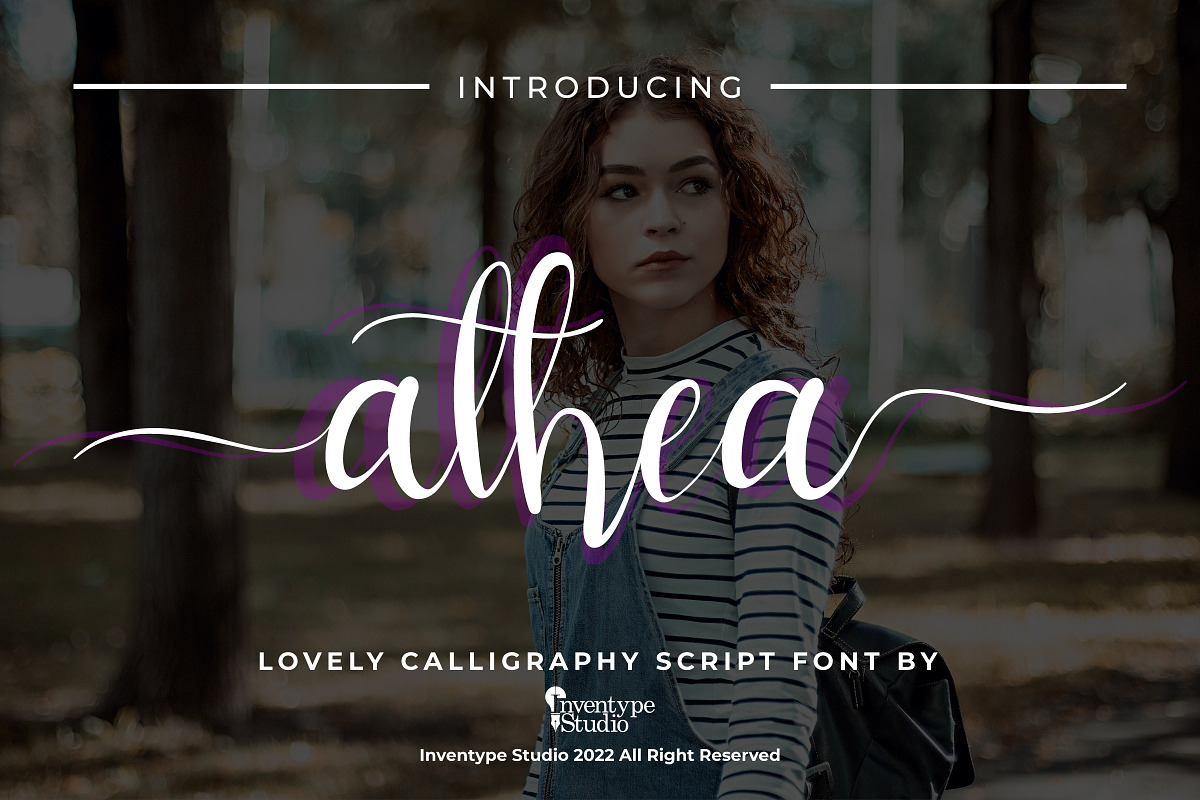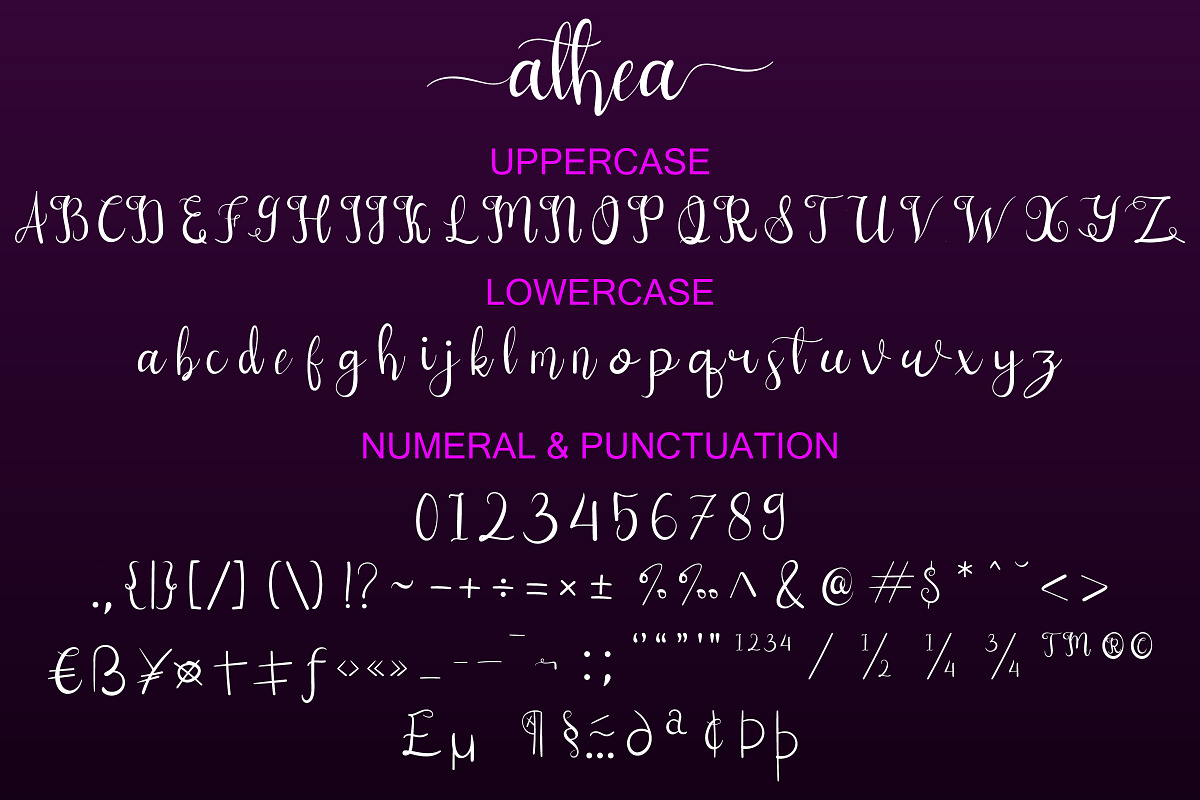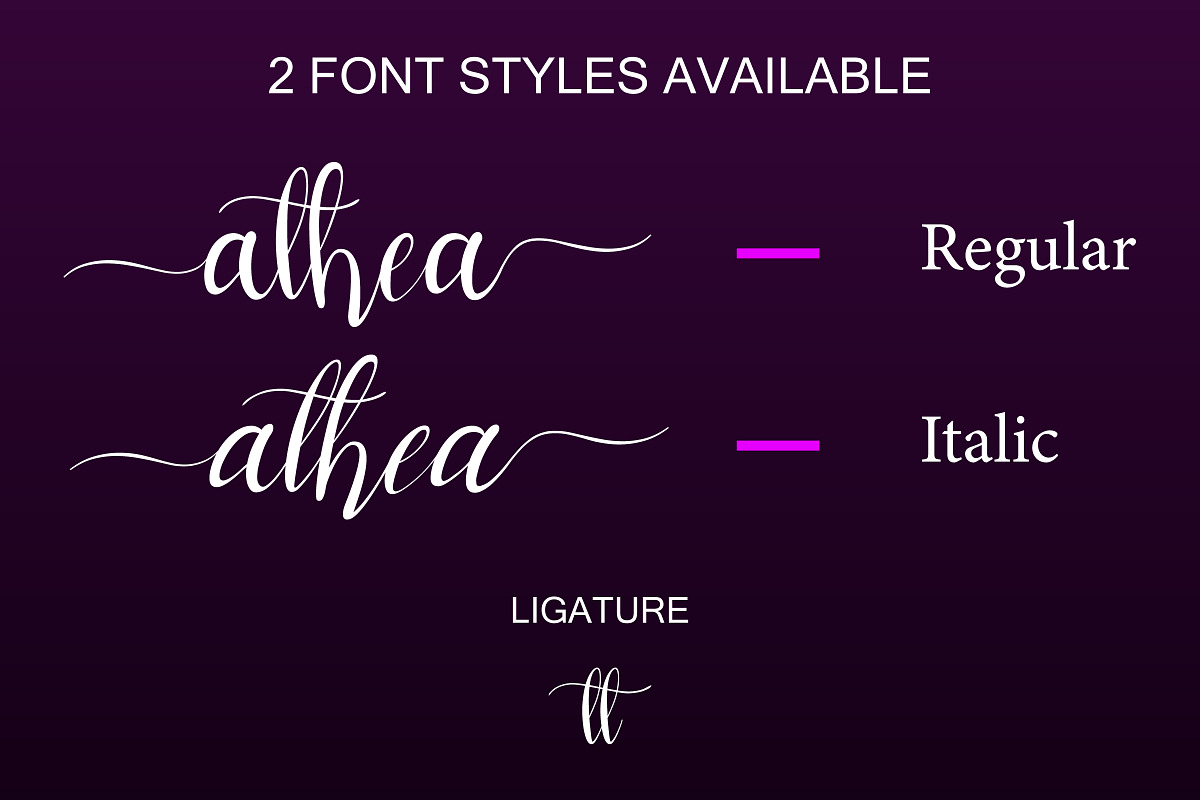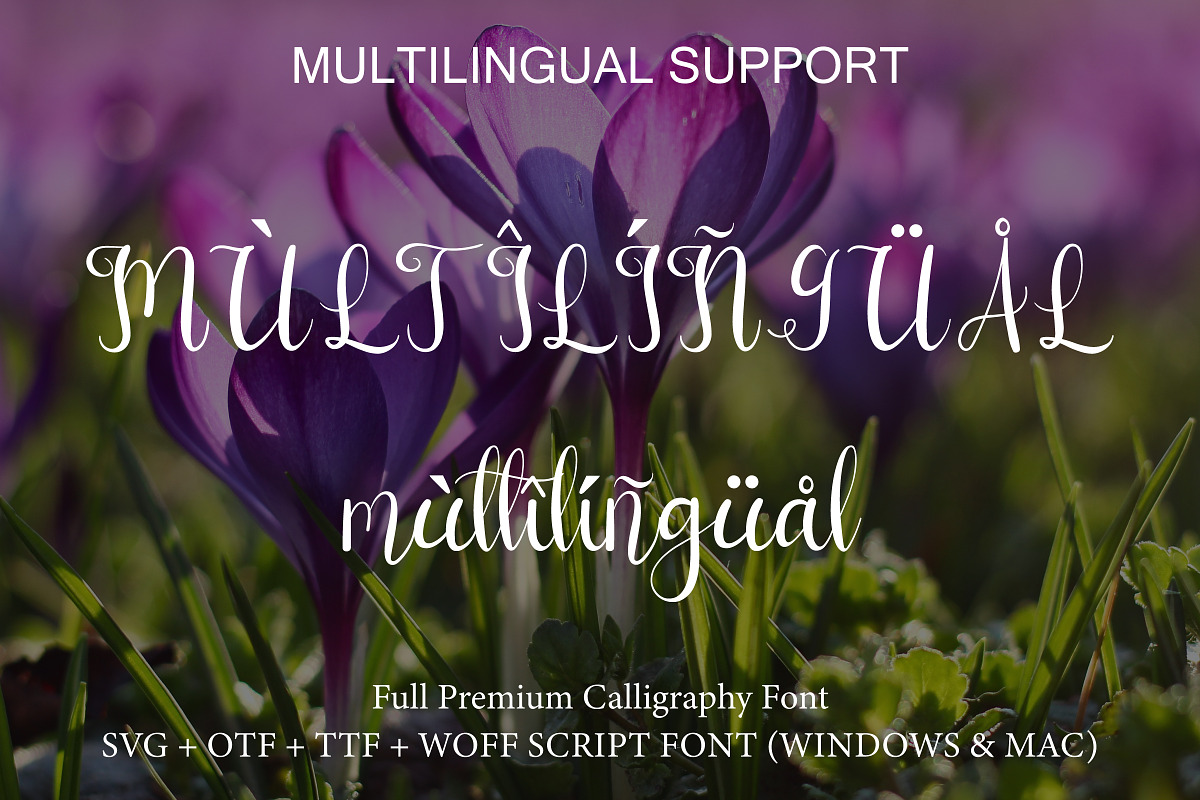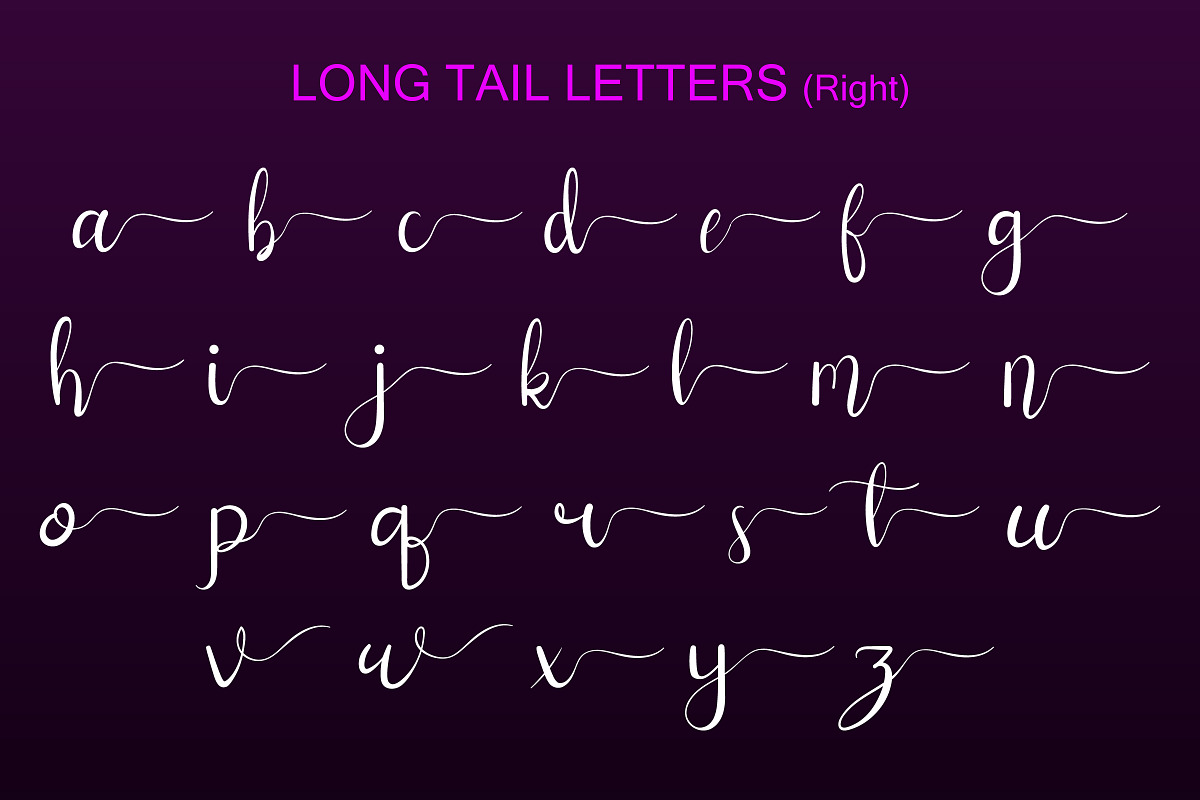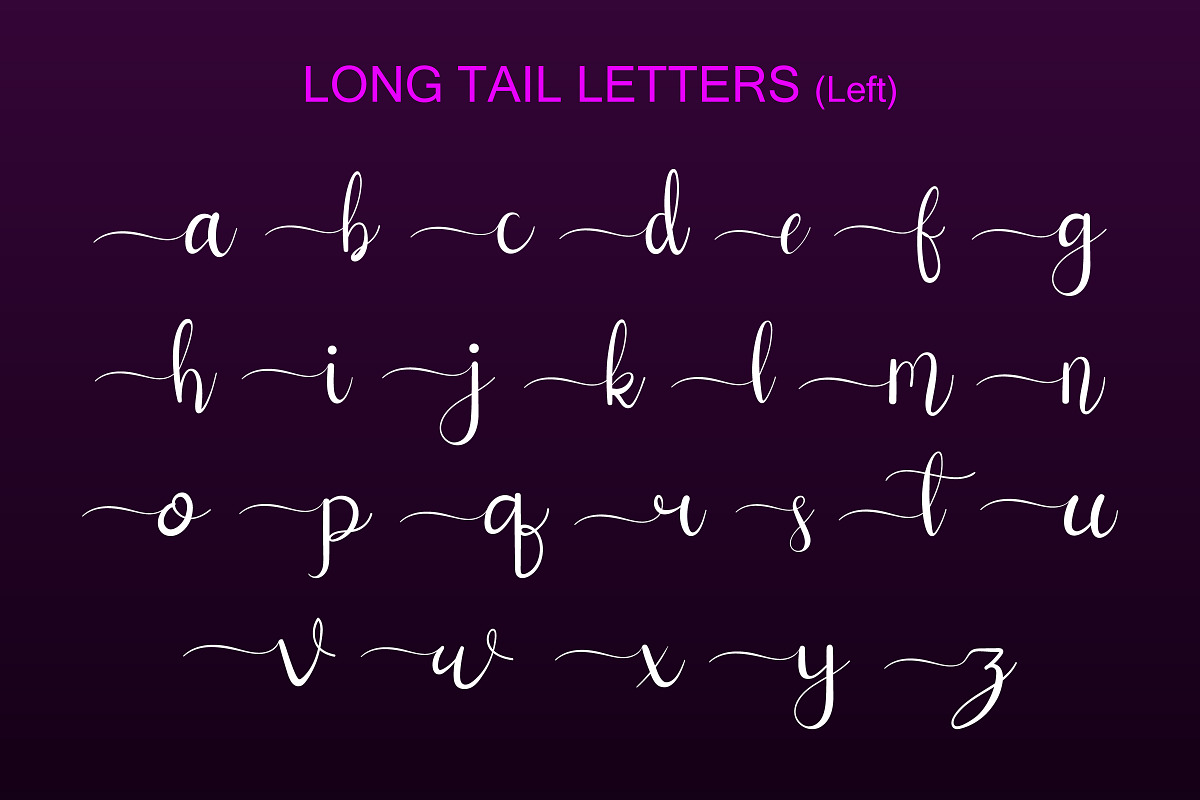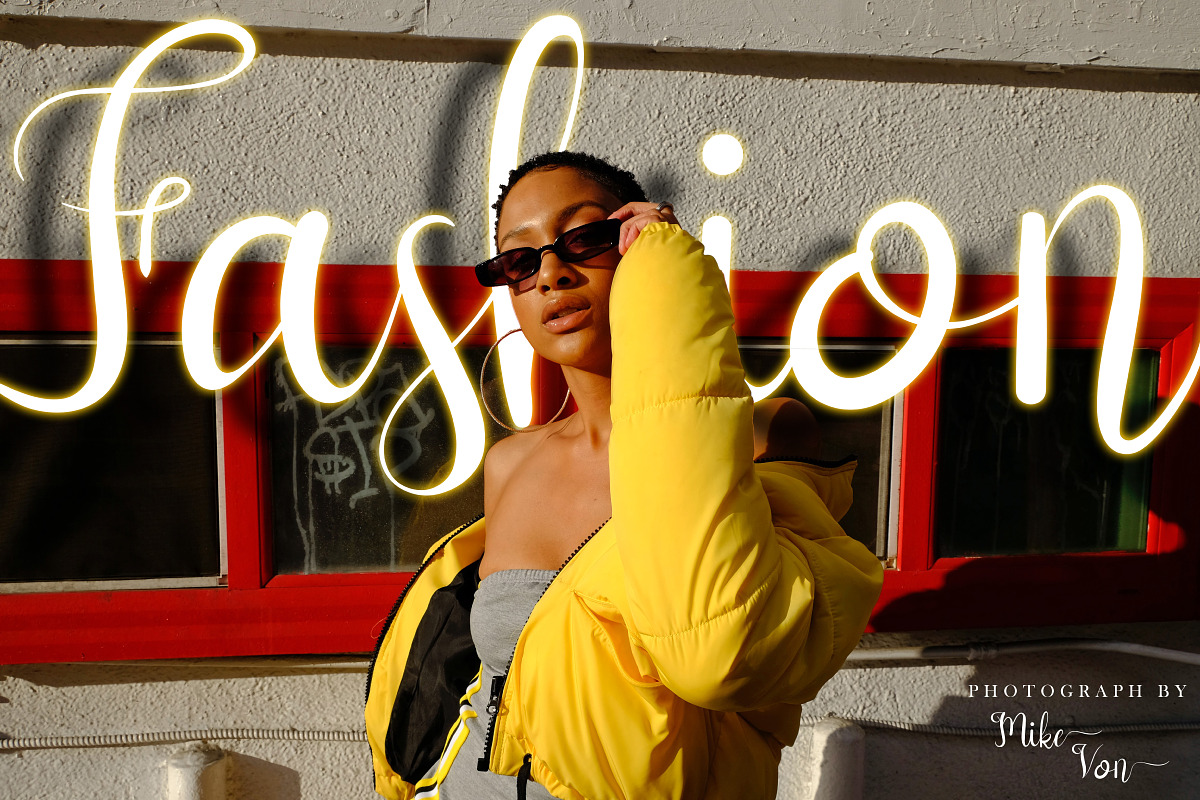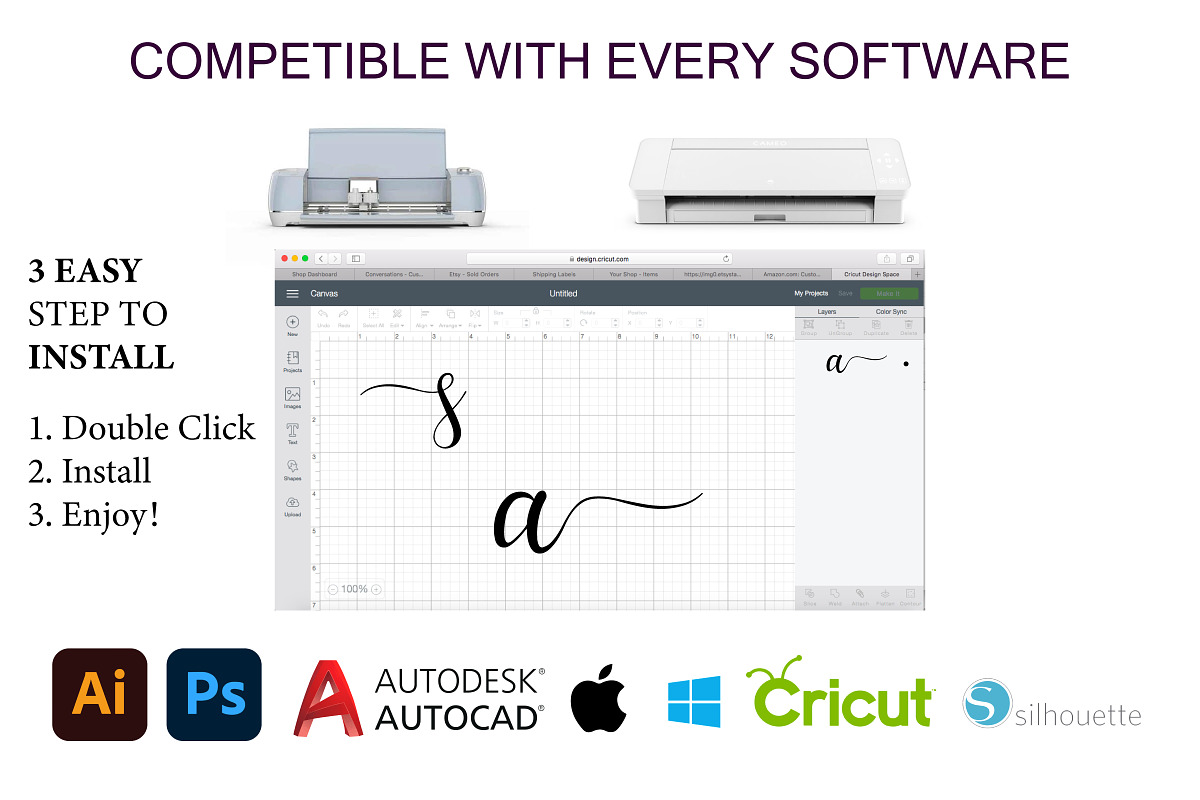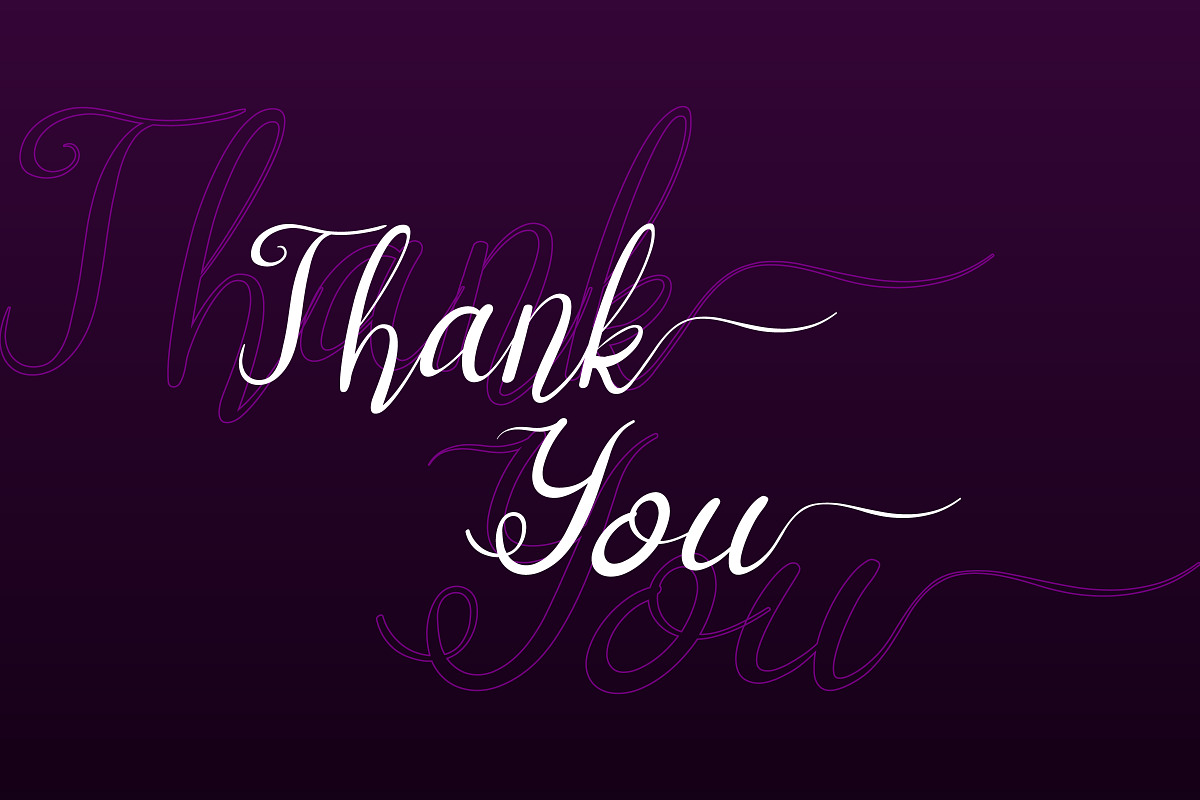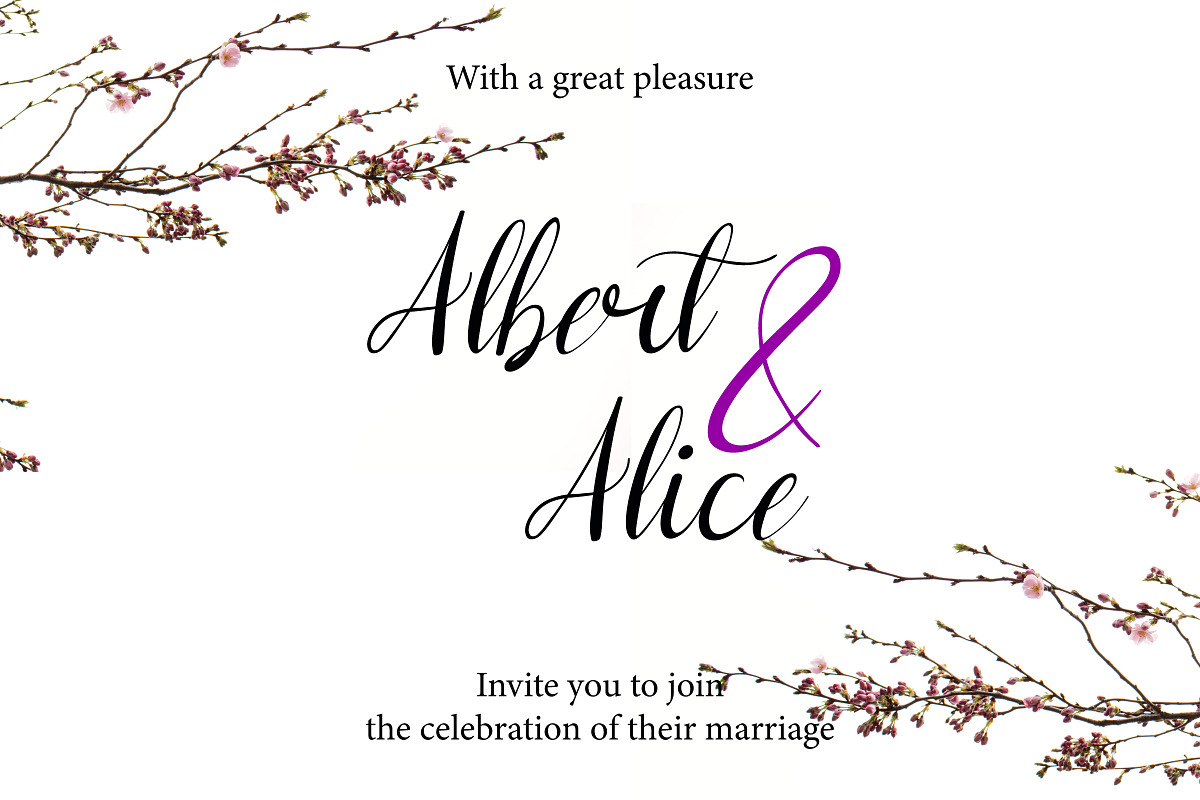
Athea - Lovely Wedding Script
Athea is a modern calligraphy script font with a long tail for every alphabet (beginning and ending). This font was inspired by the beauty of woman's handwriting. It will add a lovely look to any design project that you wish to create!
This font is suitable for use on photography, business cards, weddings, t-shirt designs, logos, magazines, quotes, fashion, watermarks, invitations, signatures, crafting.
- Ton of glyphs (include Uppercase, Lowercase, Numerals & Punctuations. Works on PC & Mac
- Stylish Alternate for every Alphabet (lovercase)
- 2 Font Styles